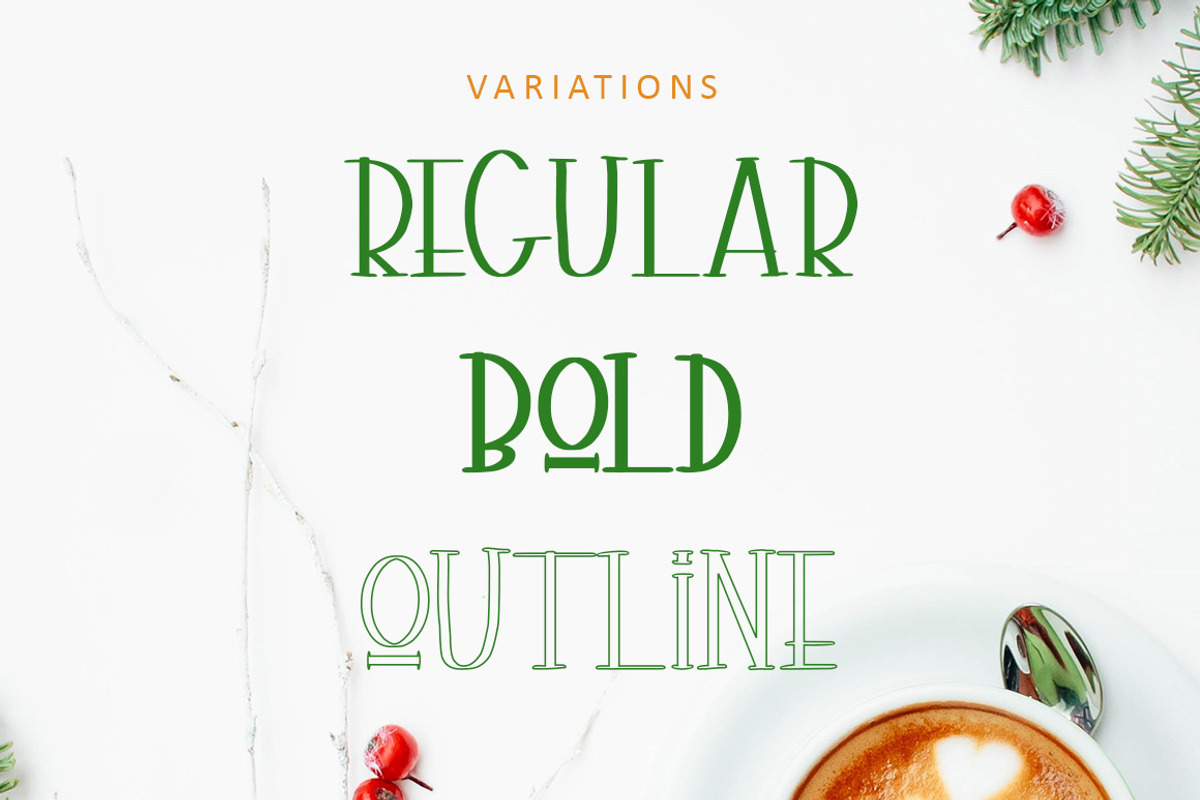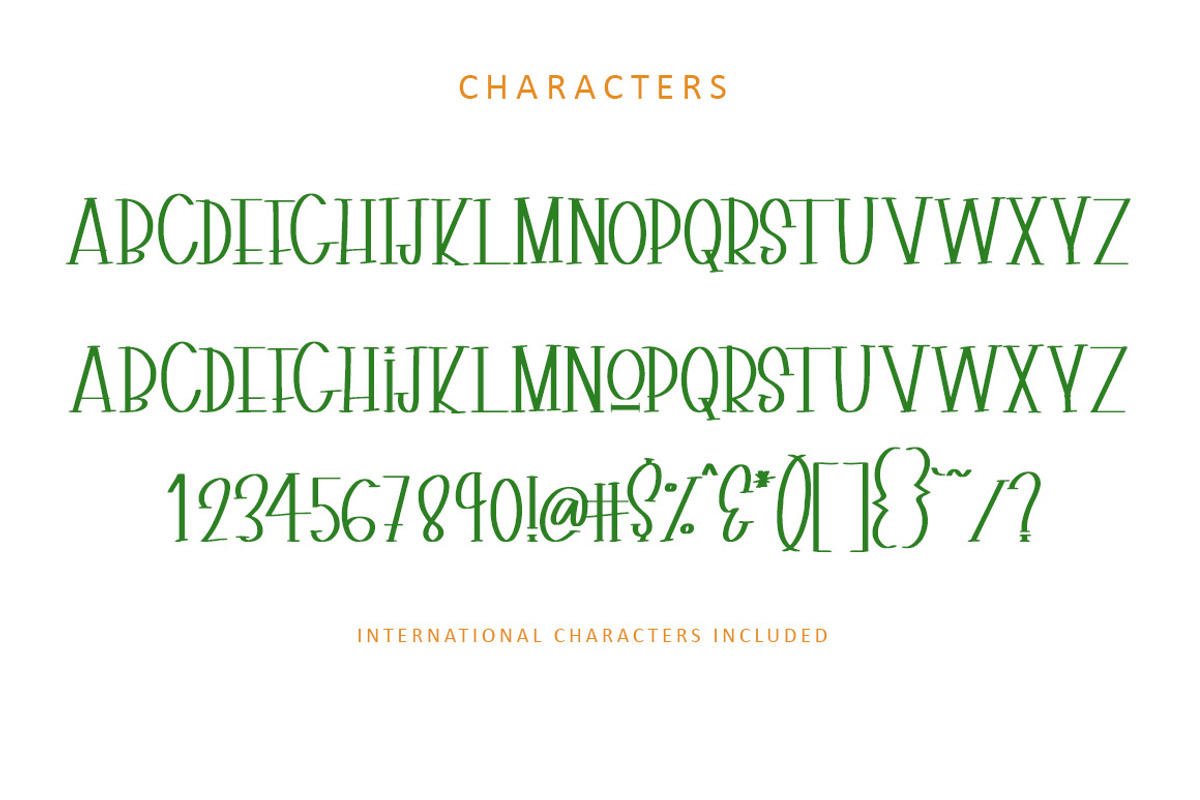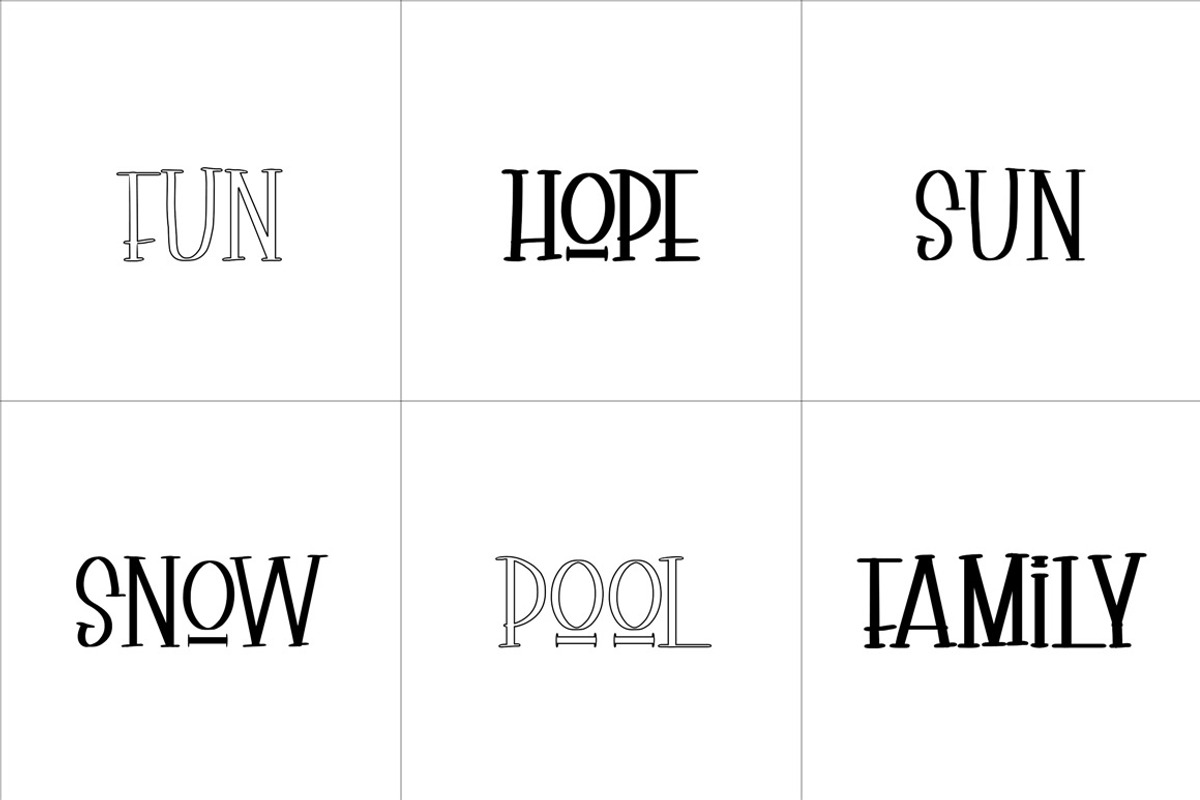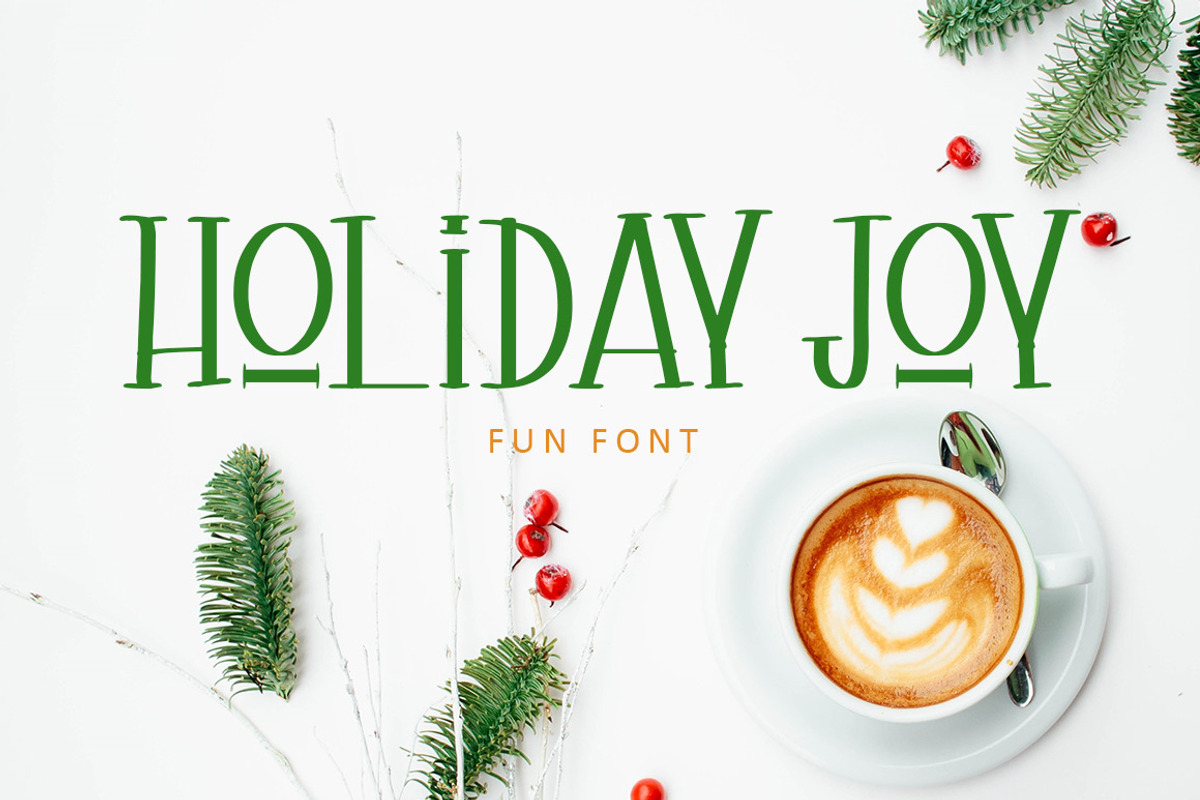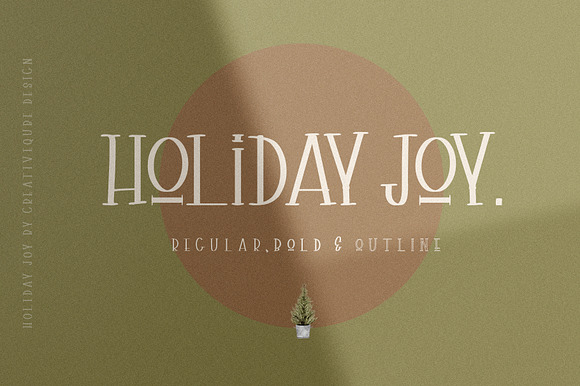
Holiday Joy Display Font
Introducing Holiday Joy
This is an all caps fun font perfect for cards, invites, quotes, labels, logos and so much more! Holiday Joy comes in Regular, Bold and outline.
- International Characters included.
Why Holiday Joy Display Font is worth a look
Holiday Joy Display Font by Creativeqube Design fits naturally into Branding, posters, packaging, typography.